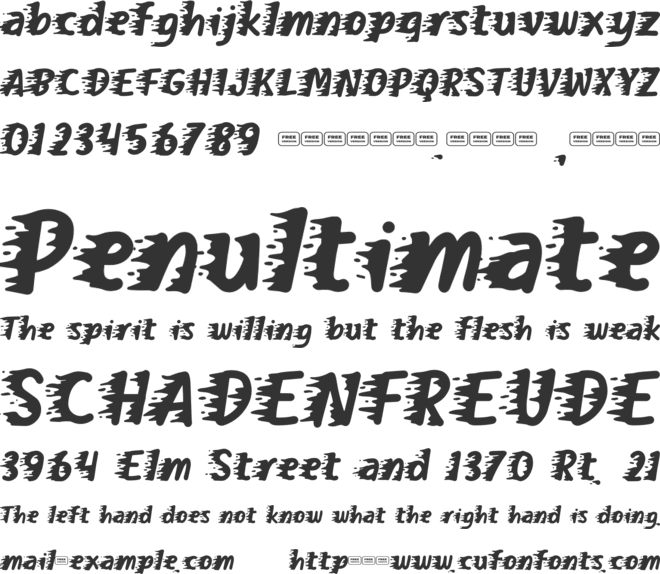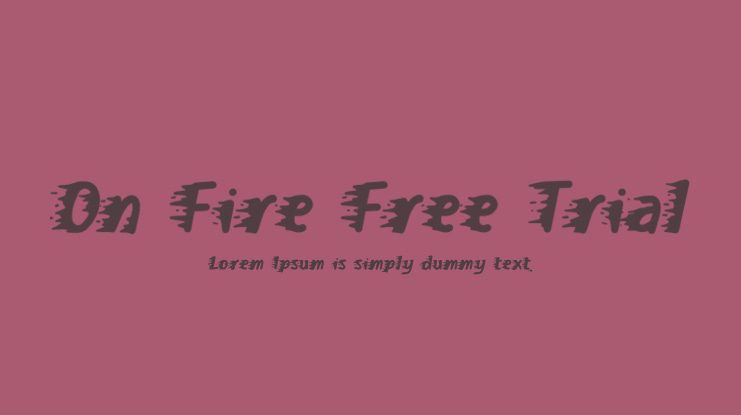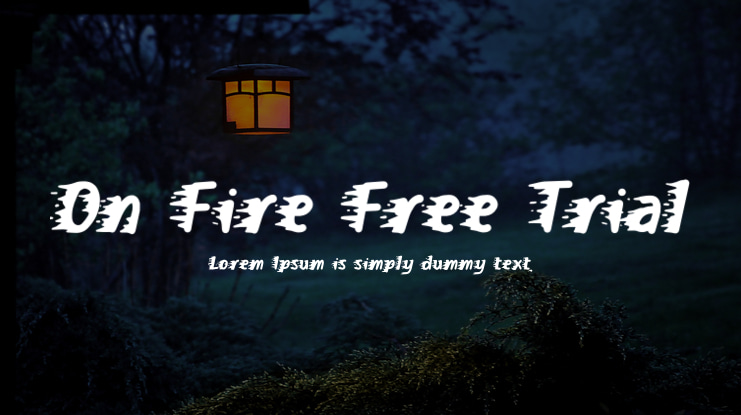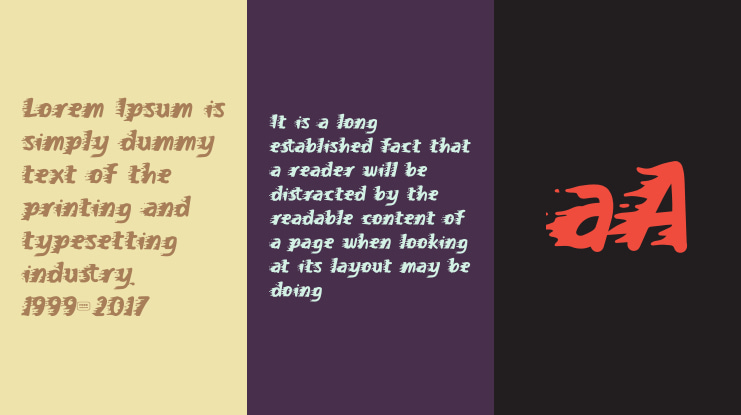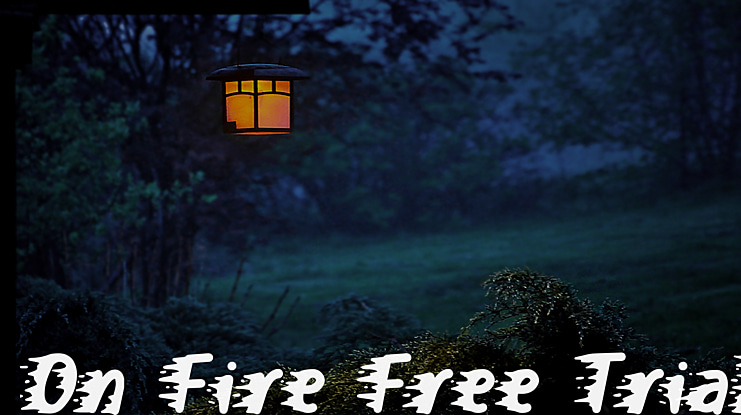
On Fire Free Trial Font
On Fire is a fiery and fun display font that has spicy feel.
On Fire has a fiery effect, it’s the perfect font for giving any design a fiery and dangerous feel, spices brand, or maybe spicy delicious food!